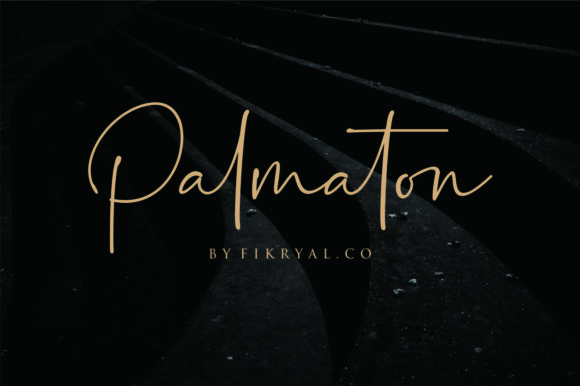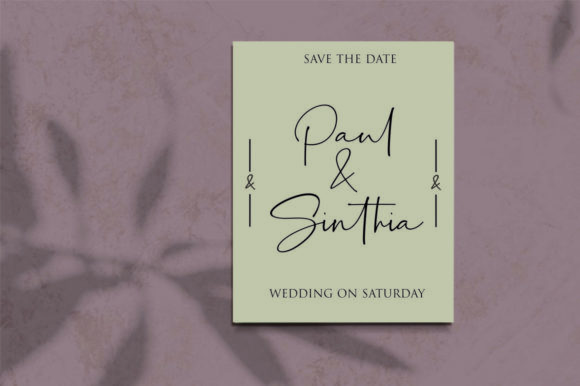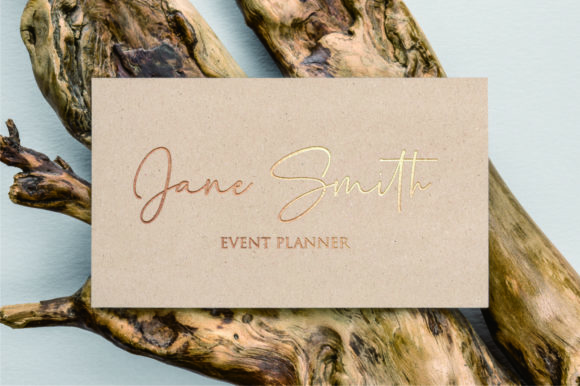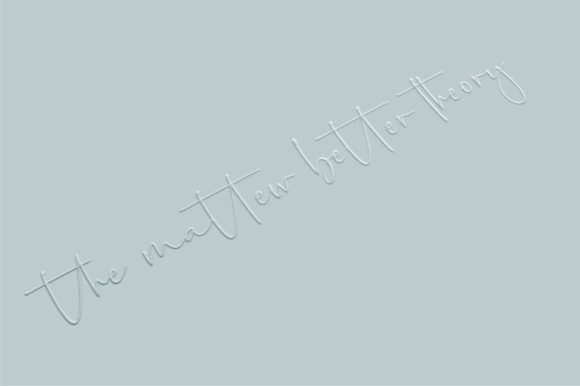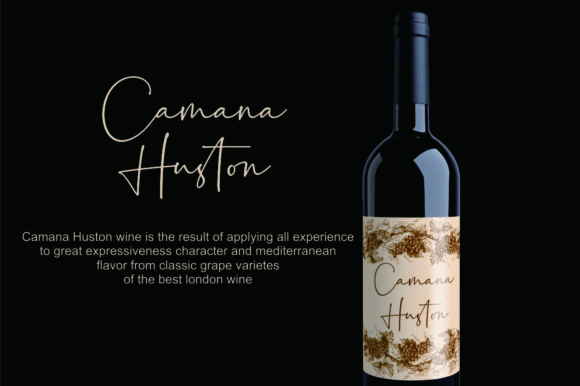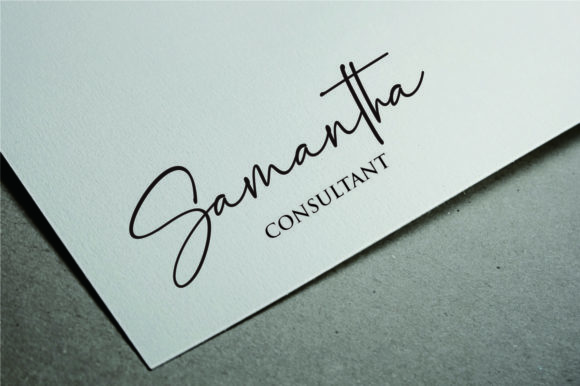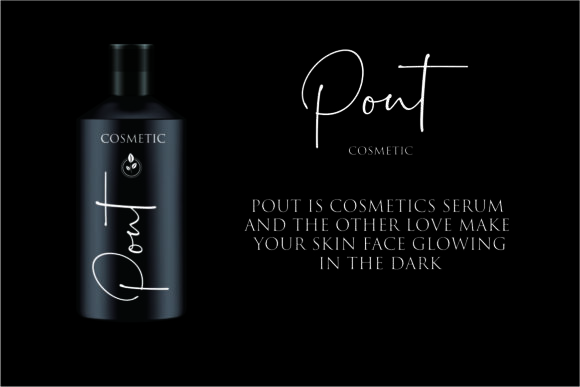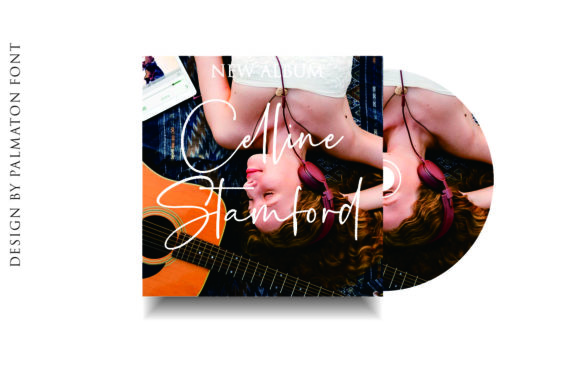
Palmaton Font
About Palmaton Font
Palmaton is a sweet and charming handwritten font with a cool and casual style. Use it to turn any crafting idea into an authentic piece of art!